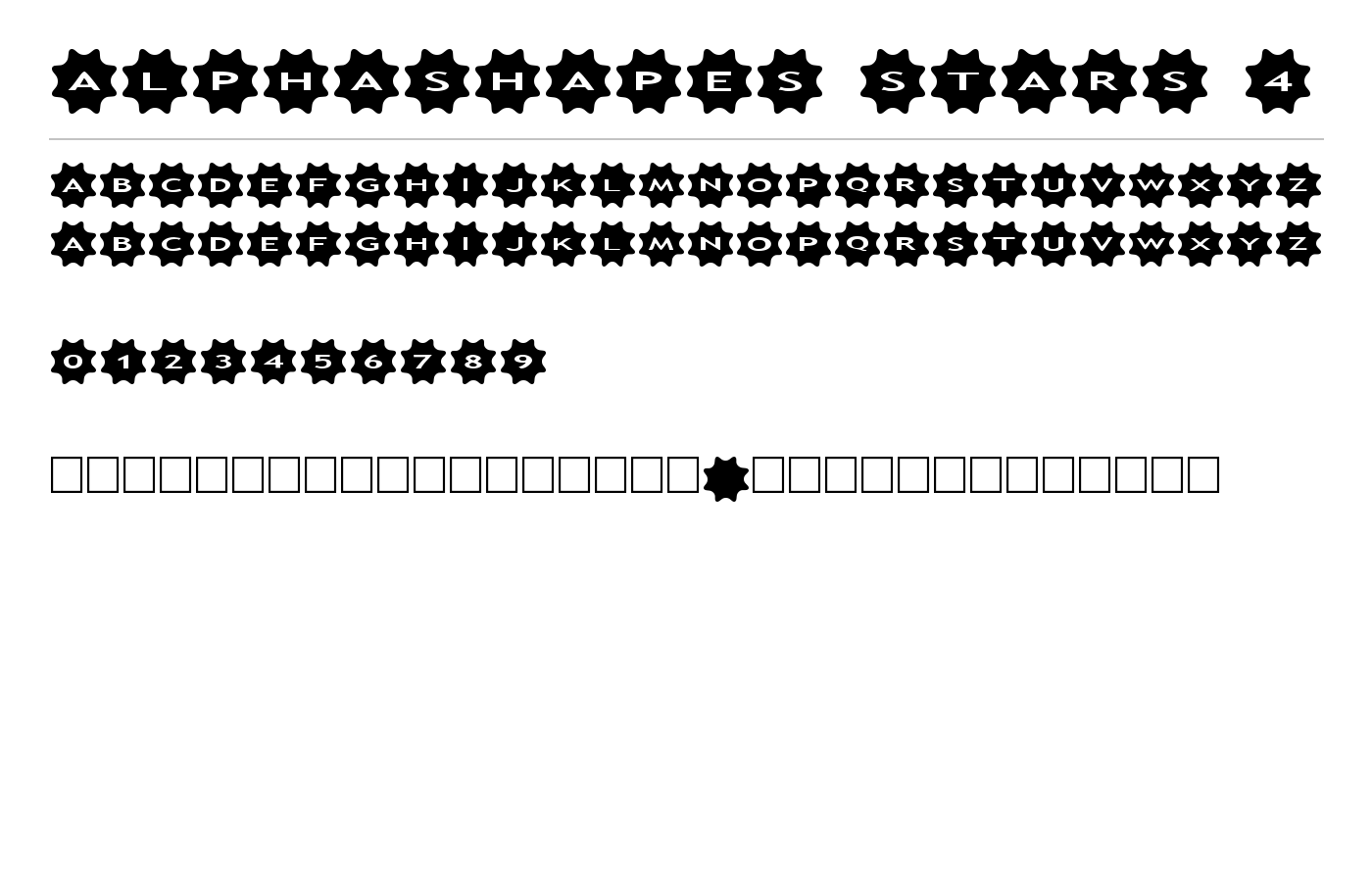
AlphaShapes Stars 4 is a playful display font featuring bold, star-shaped glyph containers with clean, simple uppercase letters and numbers centered inside each star. This unique, eye-catching design is ideal for fun, decorative use in headlines, logos, or party-themed graphics where a whimsical and energetic vibe is desired. Its strong silhouette and solid shapes make it best suited for short text and attention-grabbing applications rather than body copy.
AlphaShapes stars 4 Font
About AlphaShapes stars 4 Font